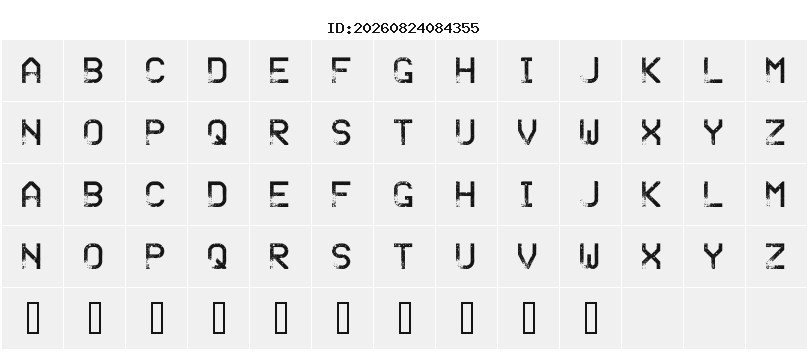
Sandy Ravage Preview
• Font Name: Sandy Ravage
• Designer: chris vile
• Manufacturer: chi media fonts
• Description: Sandy Ravage Regular is a font by chi media fonts, designed by chris vile in 2012.
About Sandy Ravage.ttf
Sandy Ravage.ttf is a modern, elegant sans-serif font designed for ultimate readability and visual harmony. Perfect for branding, headlines, web design, and print materials.